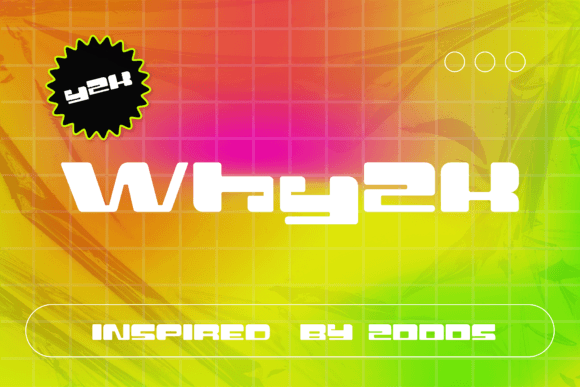
Behold, the Why2k Font: A Blast from the Past with a Modern Twist!
Brace yourself for a typographic time warp! Why2k Font, a creation of the brilliant minds at HipFonts, is an aesthetic gateway back to the vibrant era of the early 2000s—a time when colorful, bold, loud, and experimental visuals reigned supreme. Don't let nostalgia hold you back; this font is not just a retro relic; it's a modern marvel, ready to elevate your designs to new heights.
Unleash your creativity and embrace the essence of the early 2000s with Why2k Font. Its unique character dances gracefully across posters, prints, magazine covers, and headlines, evoking a sense of nostalgia that resonates with the hearts of those who yearn for the vibrant aesthetics of that era. But wait, there's more! Why2k Font is not limited to print media; it seamlessly transcends into the digital realm, captivating audiences on social media platforms, music videos, and even YouTube channels.
If you're seeking a font that speaks volumes, look no further than Why2k Font. Its bold and playful personality commands attention, leaving an unforgettable impression on your audience. With Why2k Font as your creative companion, you'll craft designs that resonate, designs that transport viewers back to the early 2000s while simultaneously propelling them into the future.
This font is more than just a collection of letters and symbols; it's a journey through time, a celebration of the past, and an exploration of the future. It's a font that sparks conversations, ignites imaginations, and leaves an indelible mark on the hearts and minds of those who encounter it.